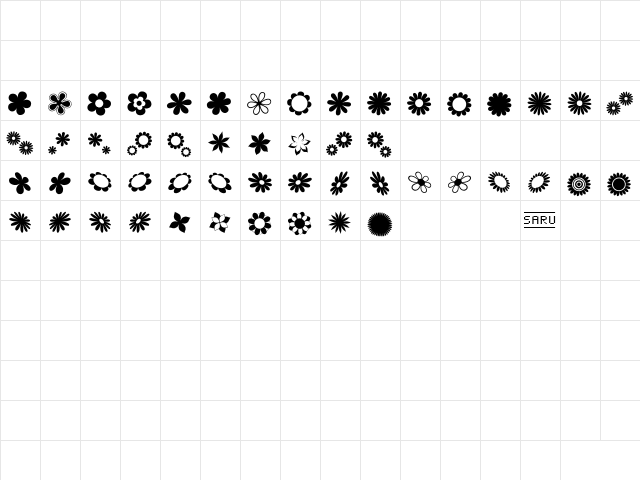
saru's Flower Ding (sRB) Regular
Design Context for saru's Flower Ding (sRB) Typeface
saru's Flower Ding (sRB) is a composed and adaptable typeface that performs quietly and consistently across a wide range of design contexts.